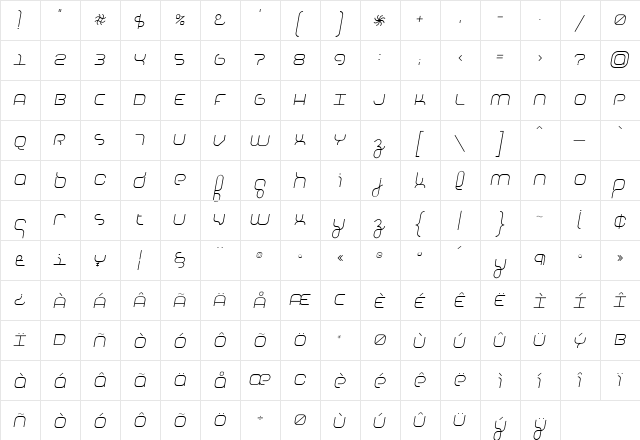
Basix Medium Italic
Design Context for Basix Typeface
Basix takes a measured approach to typography — its balanced proportions and neutral character make it a reliable workhorse for both digital and print work. The slanted form adds forward momentum and visual energy.
Pro Tip: Try Basix for annotation and caption copy alongside an upright companion — the contrast in angle creates a dynamic but ordered typographic system.